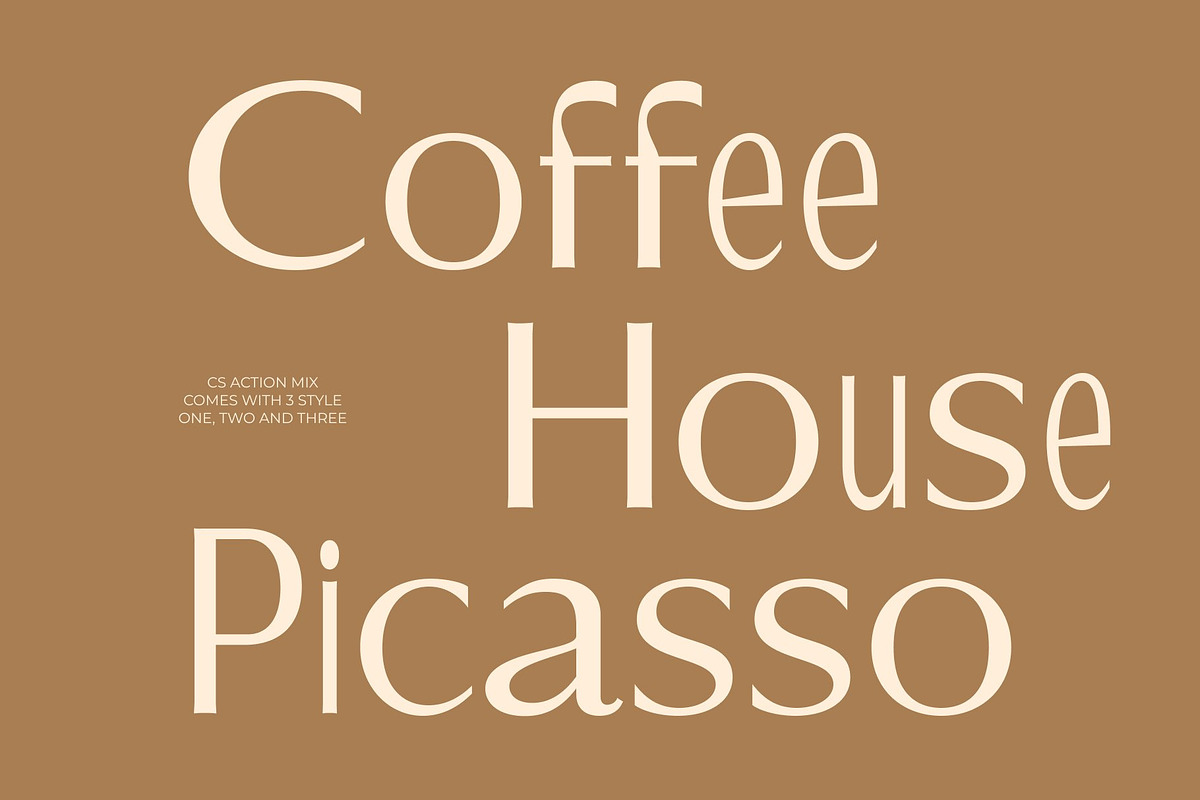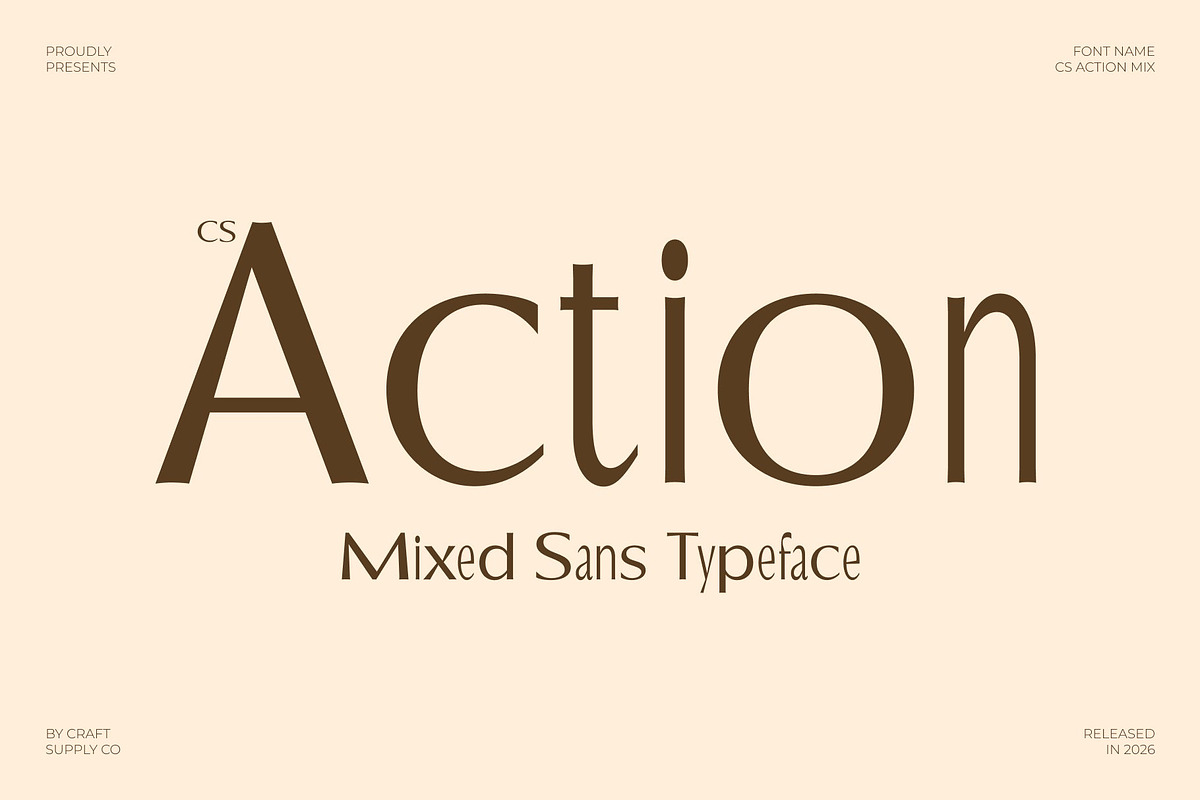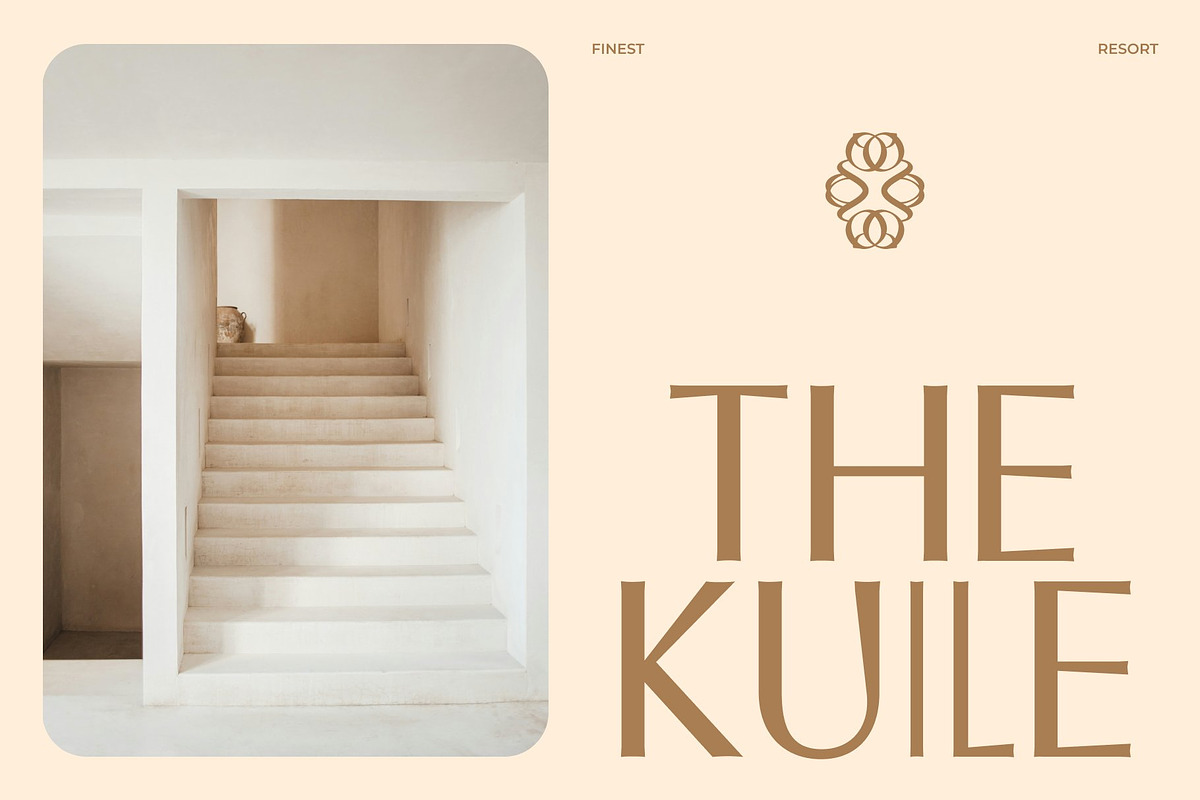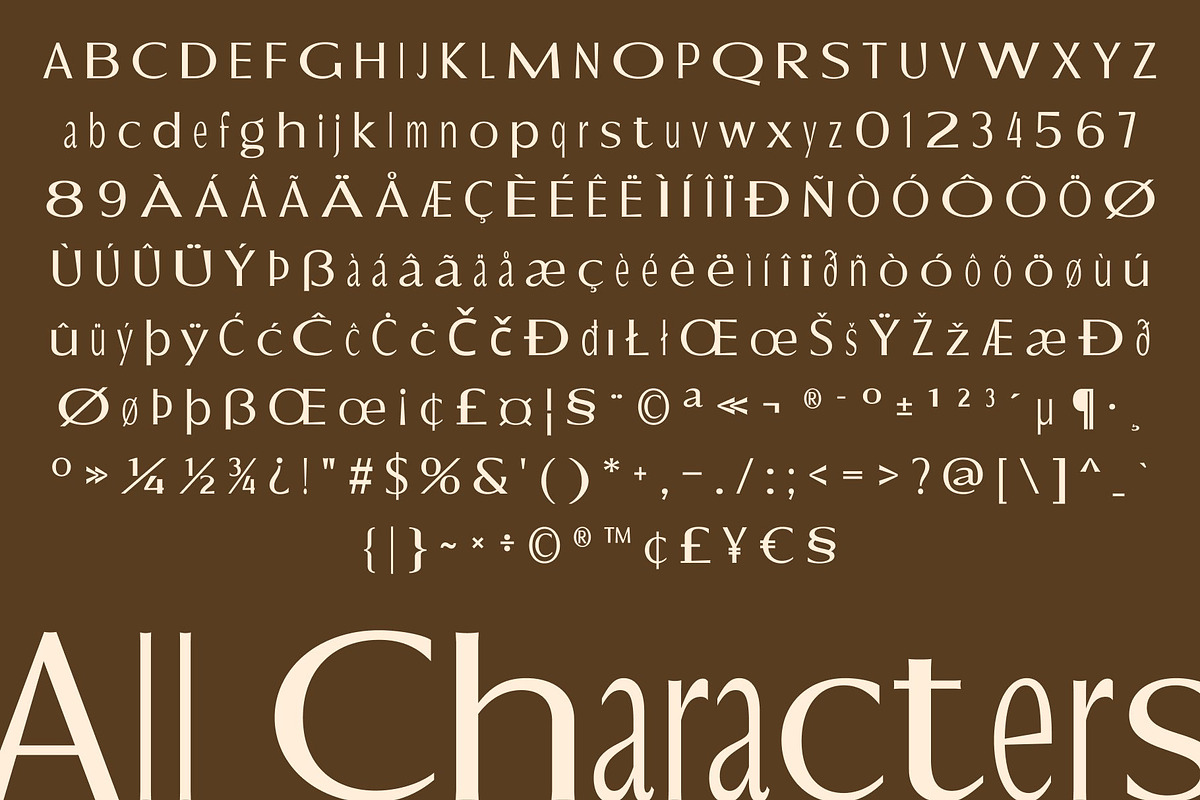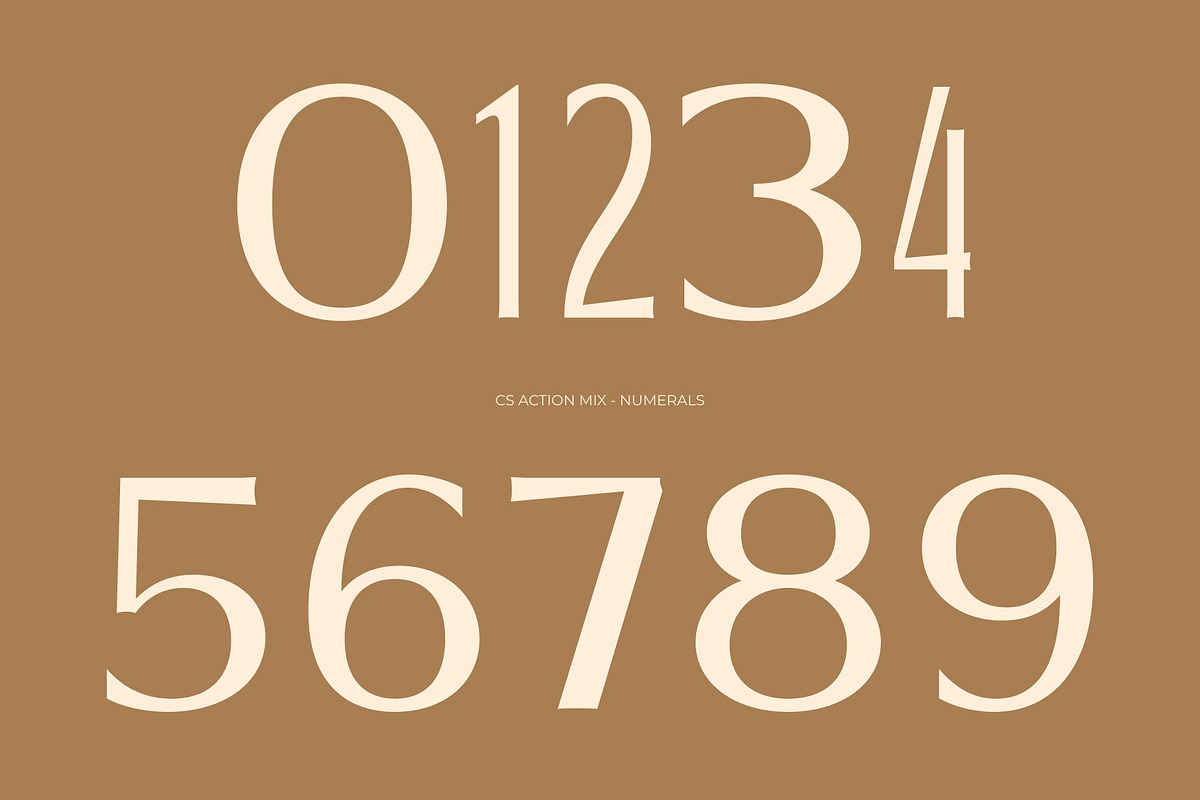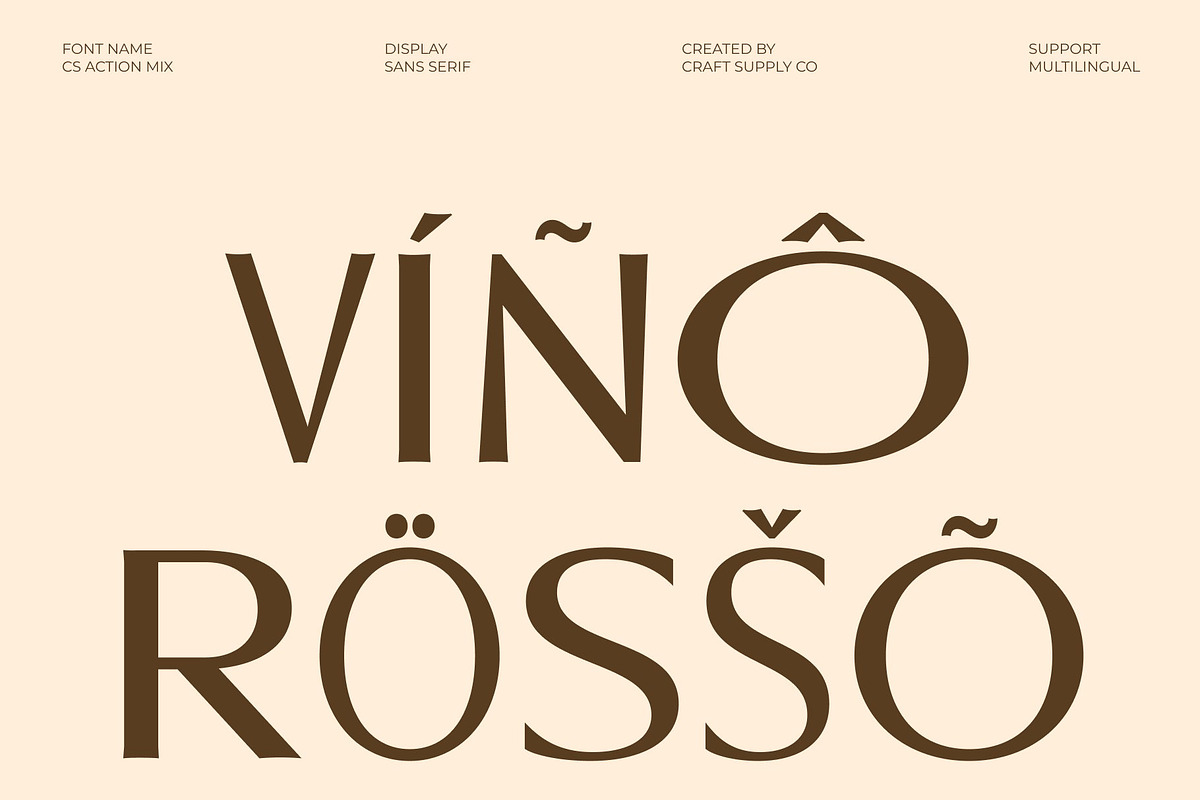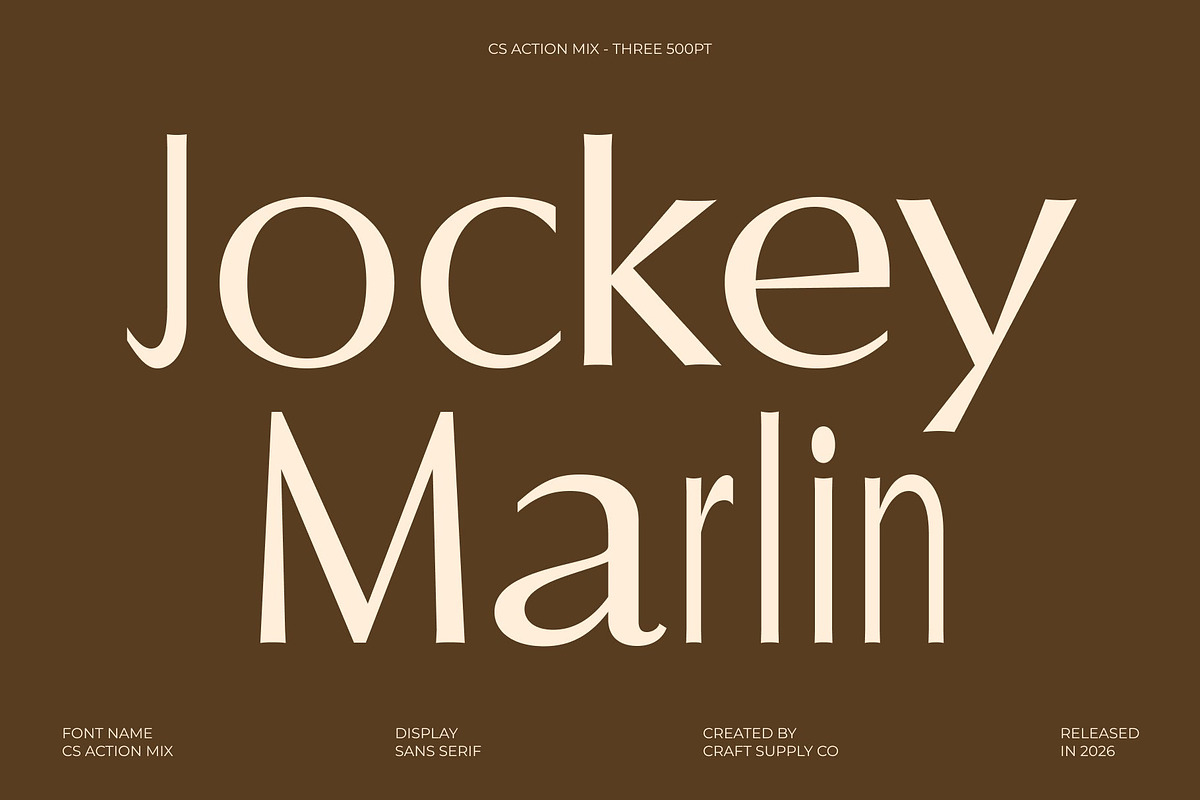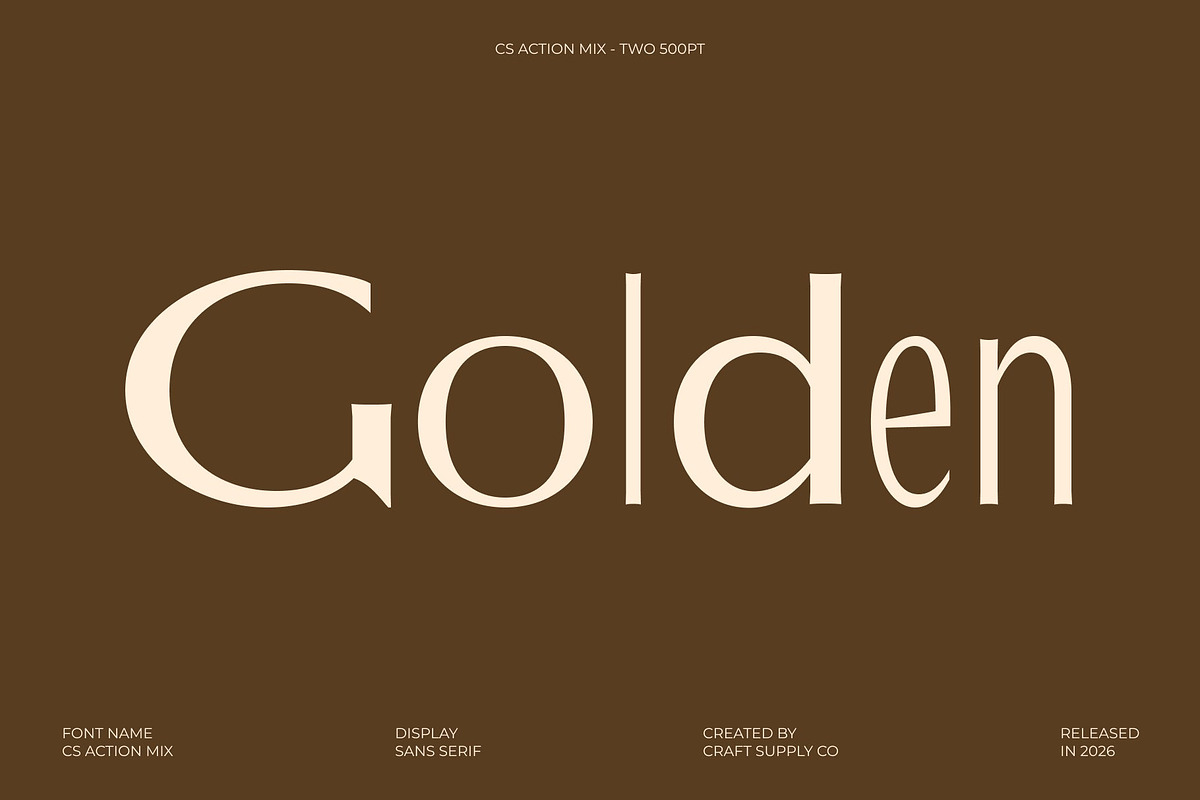
CS Action Mix
CS Action Mix – Contemporary Sans Serif Font: Minimal Precision with Modern Professionalism
Contemporary Sans Serif with Mixed Style Character This is a modern sans serif font designed to deliver clarity, sophistication, and contemporary visual balance. Built with sleek geometric forms and minimalist construction, this typeface introduces a distinctive mixed-style concept that adds subtle contrast and rhythm to every composition.
A Balanced Blend of Bold and Regular Letterforms The defining strength of this font lies in its thoughtful fusion of bold and regular styles. This mixed-weight approach creates dynamic hierarchy and visual movement while preserving the font’s clean and organized structure. The contrast between weights enhances readability and gives layouts a more engaging and contemporary appearance without sacrificing simplicity.
Minimalist Elegance with Functional Clarity This font embraces a streamlined aesthetic by removing unnecessary embellishments and focusing on pure functionality. Its clean lines and balanced proportions create a professional tone that feels modern and approachable. This simplicity allows the content to remain the focus while still delivering strong visual sophistication across different design contexts.
Perfect for Branding, Web Design, and Professional Media From corporate branding and business presentations to websites and editorial layouts, this font adapts seamlessly across a wide range of applications. Its excellent readability ensures strong performance in both digital and print formats, while its modern character keeps designs feeling fresh and professional.
CS Action Mix One
CS Action Mix Two
CS Action Mix Three